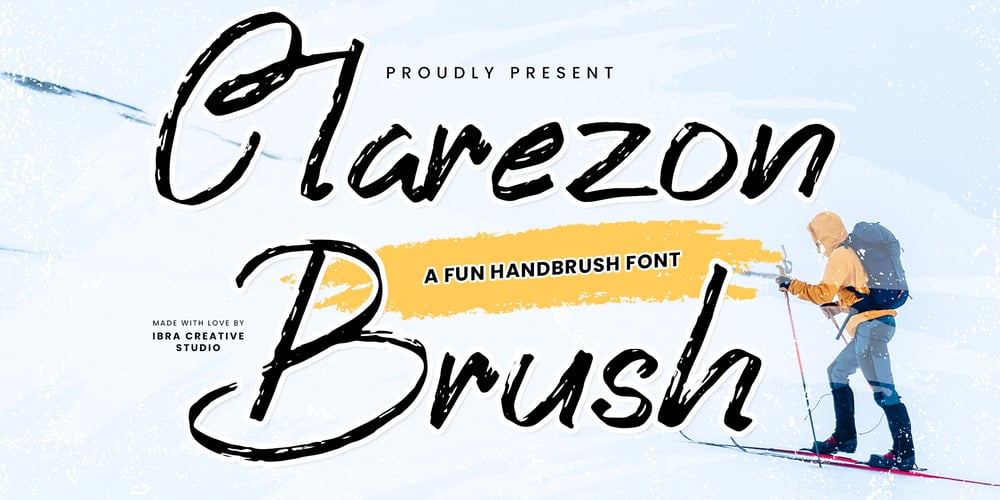
Clarezon Brush
Clarezon Brush font
Clarezon Brush Font Family was designed by Roisatul Azizah and published by IbraCreative. Clarezon Brush contains 1 styles and family package options. Clarezon Brush – A Fun Handbrush FontClarezon Brush, a playful and dynamic handbrush font, is a lively embodiment of creativity and spontaneity. With its whimsical strokes and energetic flair, Clarezon Brush injects a sense of fun and vibrancy into any design project. The font’s exuberant letterforms dance across the page, mimicking the free-spirited strokes of a handbrush, making it a delightful choice for projects that seek a touch of casual charm. Whether used for branding, posters, or social media graphics, Clarezon Brush adds a burst of personality, creating a visual experience that is both engaging and inviting. Its versatility lies in its ability to seamlessly transition between casual and spirited, making it an ideal companion for those who wish to infuse their designs with a lighthearted and dynamic touch.Clarezon Brush is perfect for branding projects, logo, wedding designs, social media posts, advertisements, product packaging, product designs, label, photography, watermark, invitation, stationery, game, fashion and any projects.Fonts include multilingual support for; Afrikaans, Albanian, Czech, Danish, Dutch, English, Estonian, Finnish, French, German, Hungarian, Italian, Latvian, Lithuanian, Norwegian, Polish, Portuguese, Slovak, Slovenian, Spanish, Swedish.